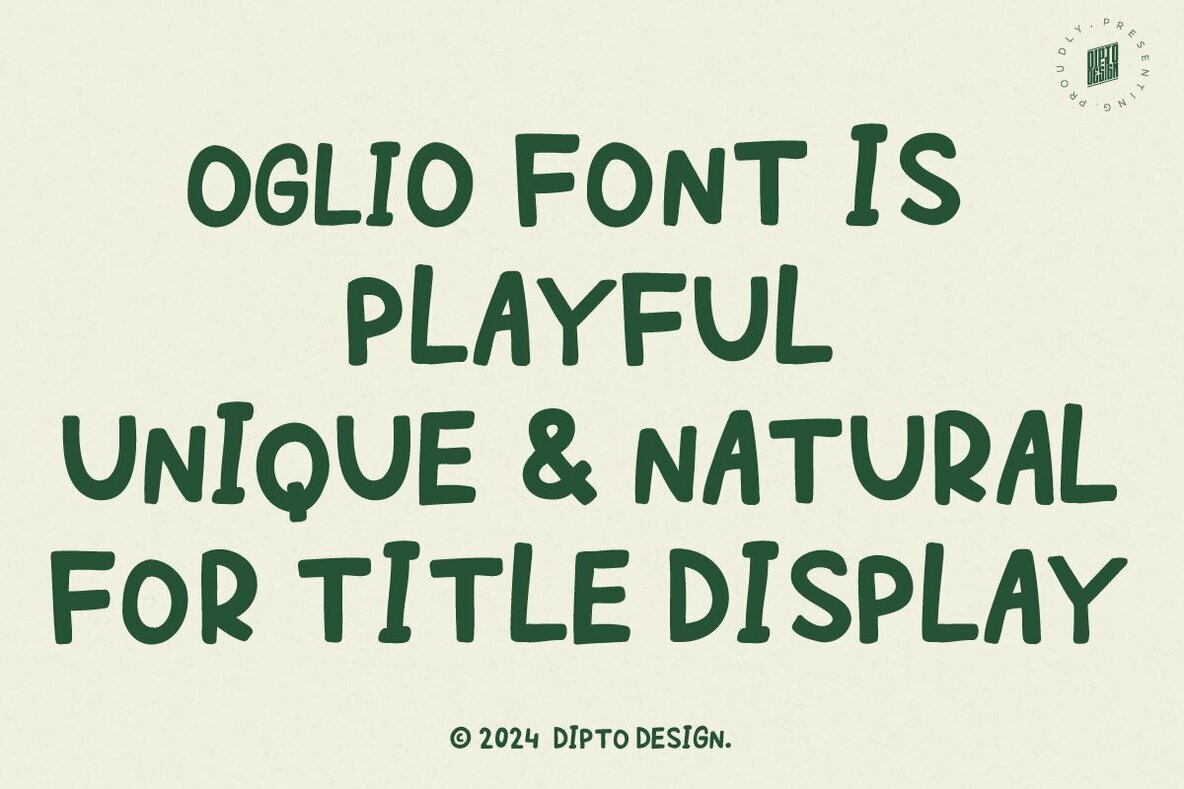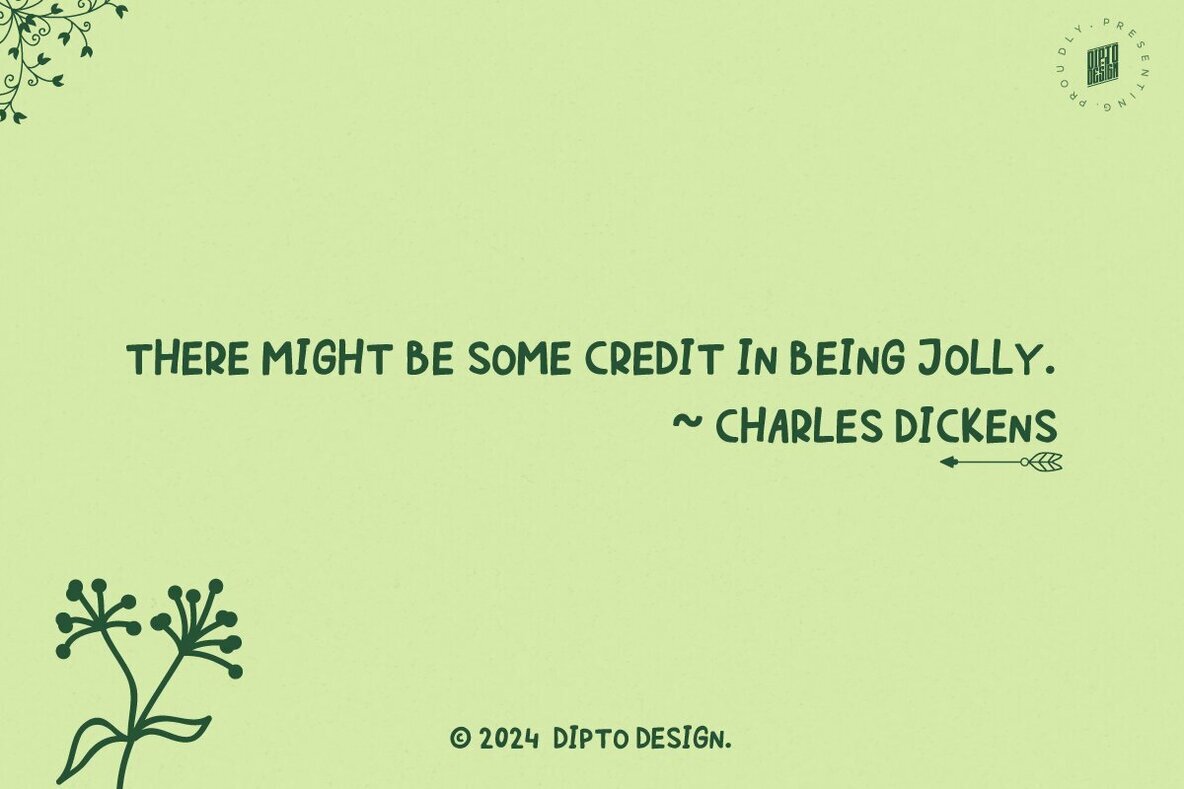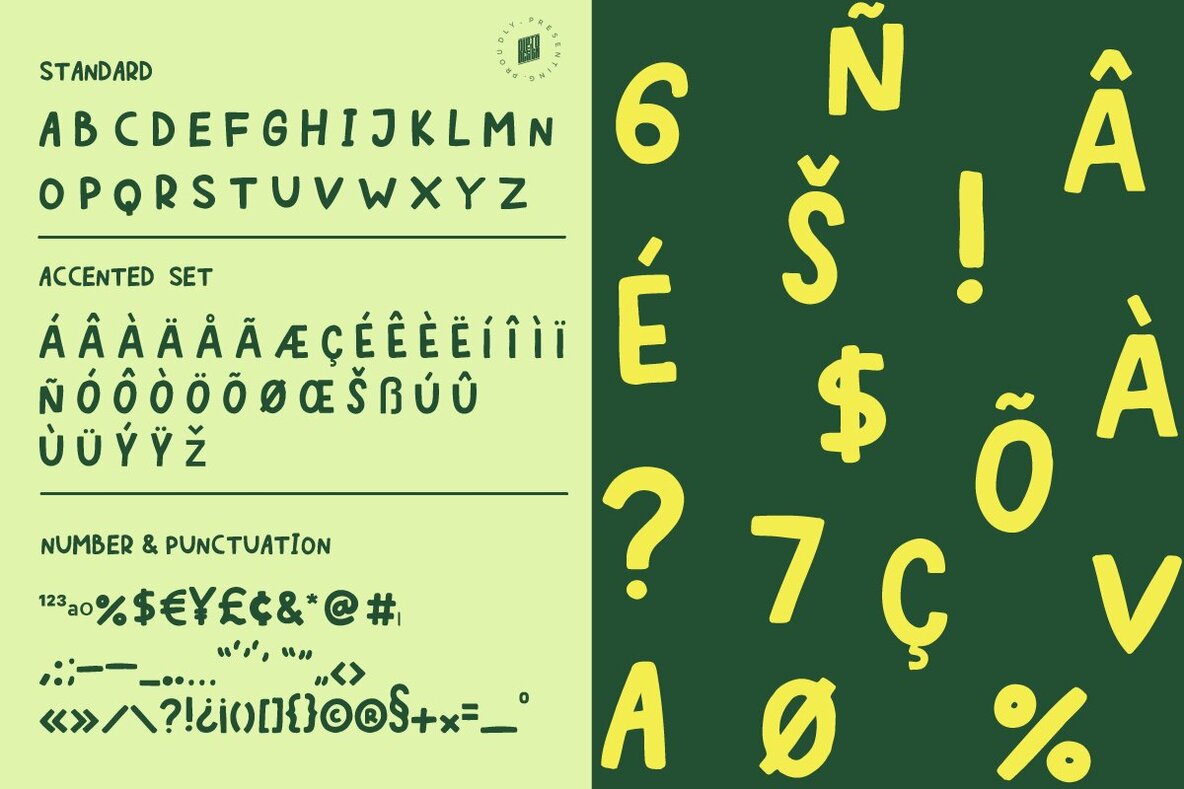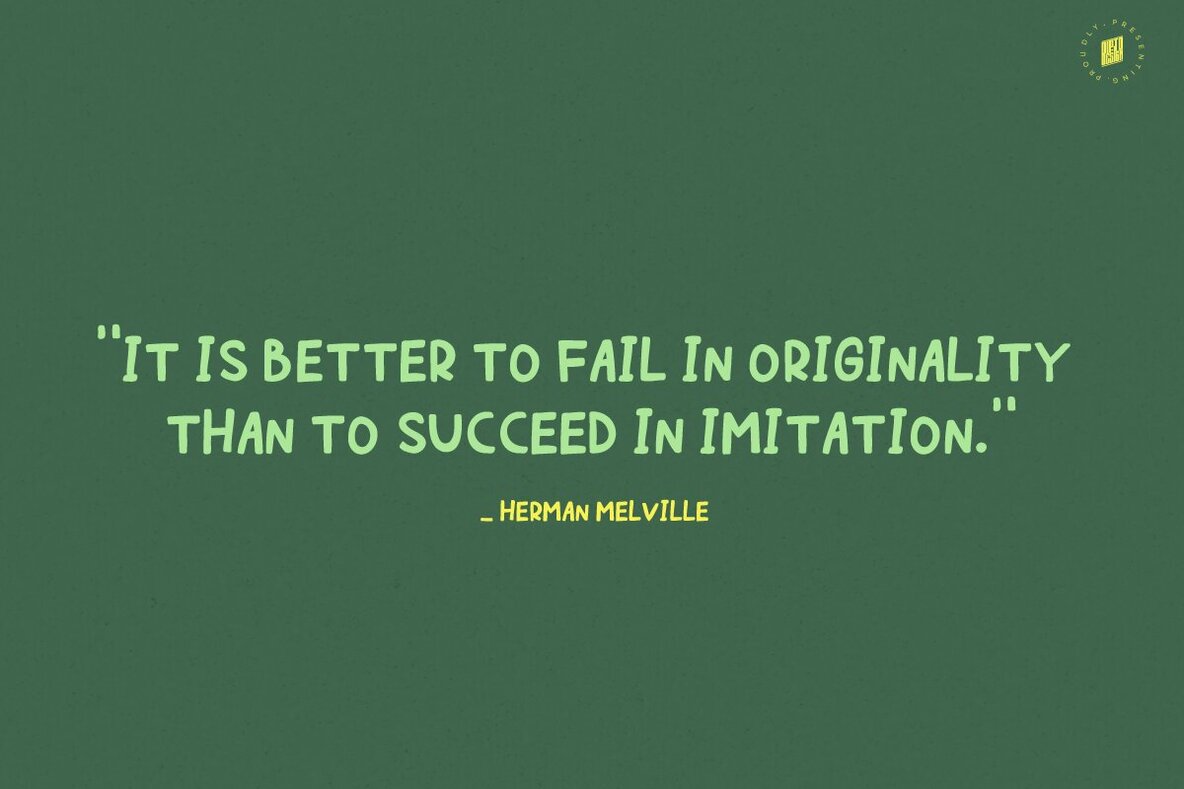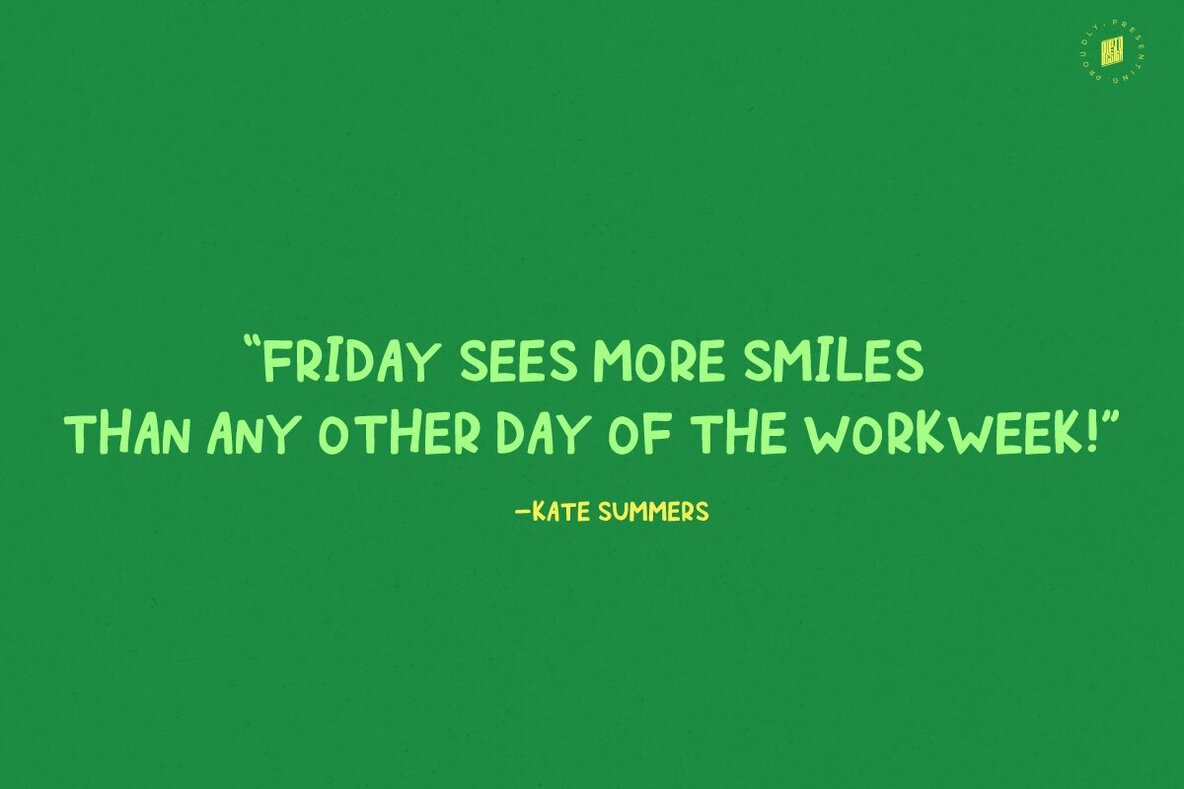
Oglio Font
Oglio Regular
Oglio seamlessly blends modern flair with timeless elegance through its graceful curves and sharp edges. This dynamic typeface is perfect for making bold statements across branding, headlines, and creative displays. Its thoughtful design ensures both style and legibility in every letter.Oglio: Modern Elegance in Typeface Design